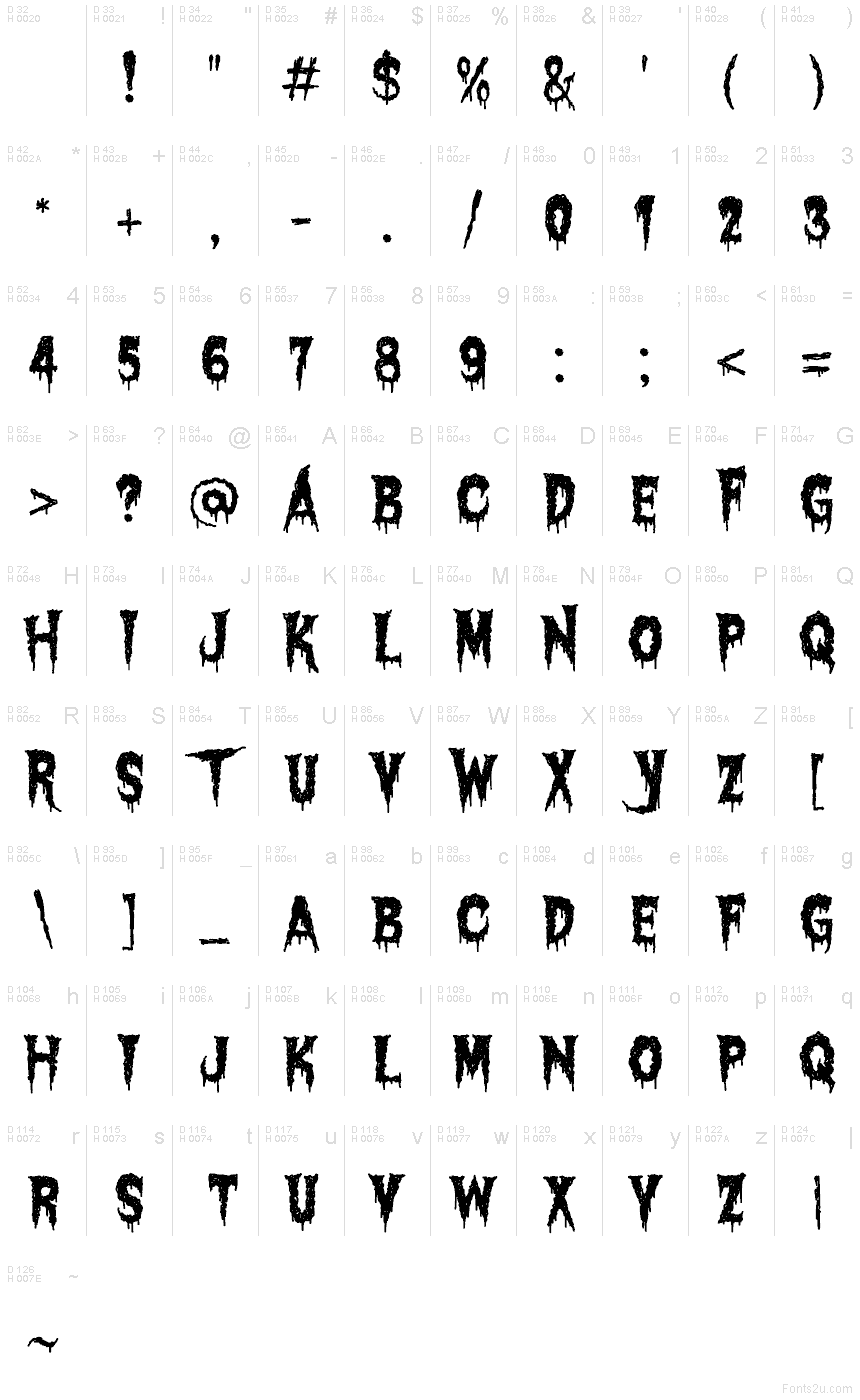
Creaking Crypt
Creaking Crypt font by Sinister Fonts is a free dripping horror display font. Chunky strokes congeal into tar-like drips, with ragged edges and speckled, inky textures that feel pulled from a damp basement wall. The letters stagger with an uneven rhythm that screams tension, giving you immediate atmosphere without extra effects.
Using Creaking Crypt, your titles hit like a jump scare-loud, sticky, and unmistakable. It shines on Halloween posters, haunted house flyers, B‑movie title cards, survival‑horror game logos, escape room signage, and eerie YouTube thumbnails. Set this free font large with slightly looser tracking, and pair it with a clean condensed sans‑serif to keep the gore legible.
Creaking Crypt Font by Chad Savage
Created 2024, hand-lettered.
A horror display font by Chad Savage / SinisterFonts.com